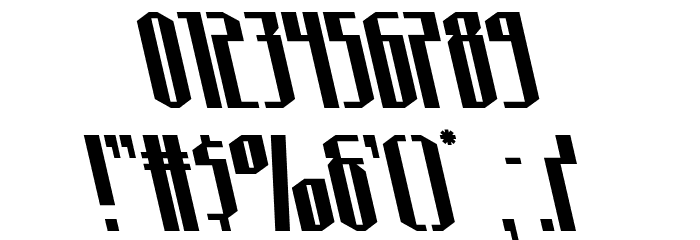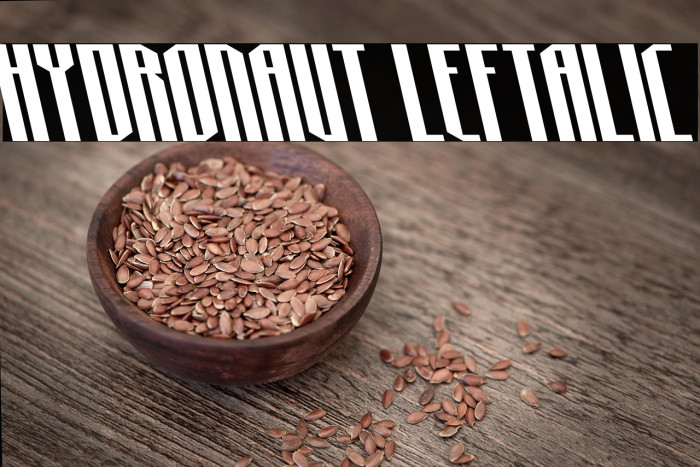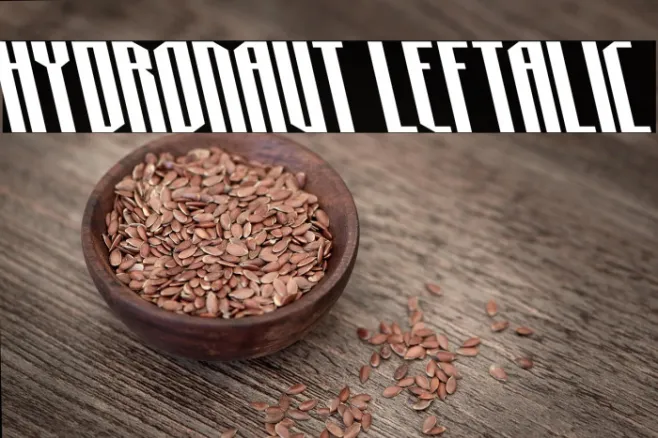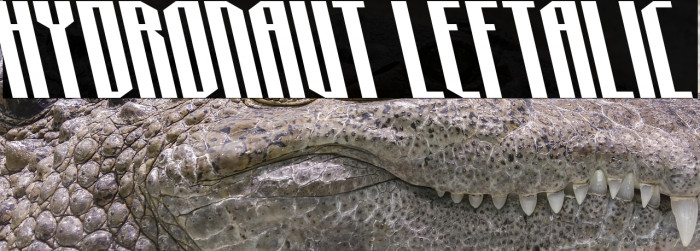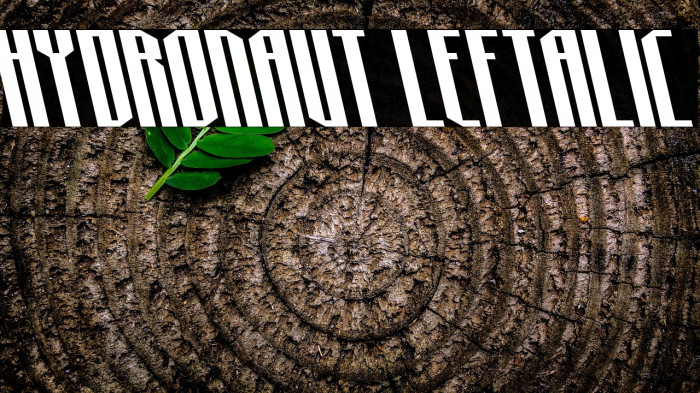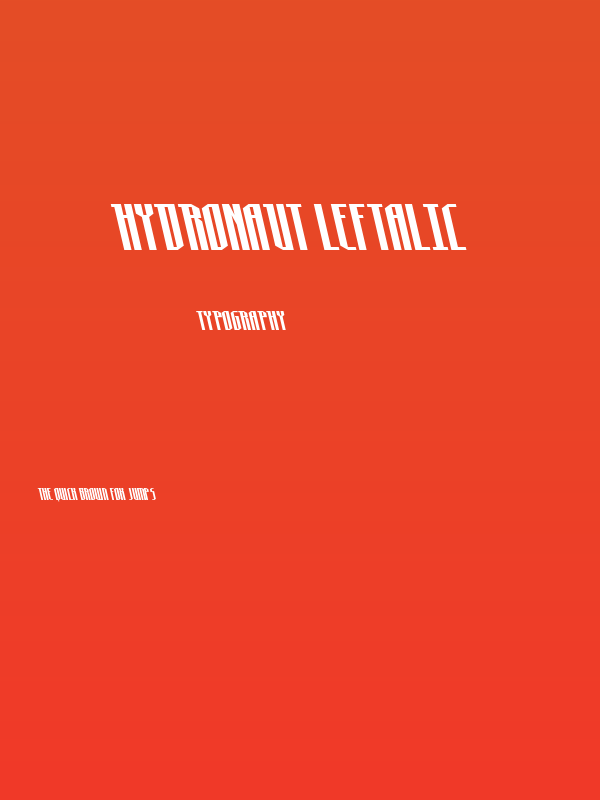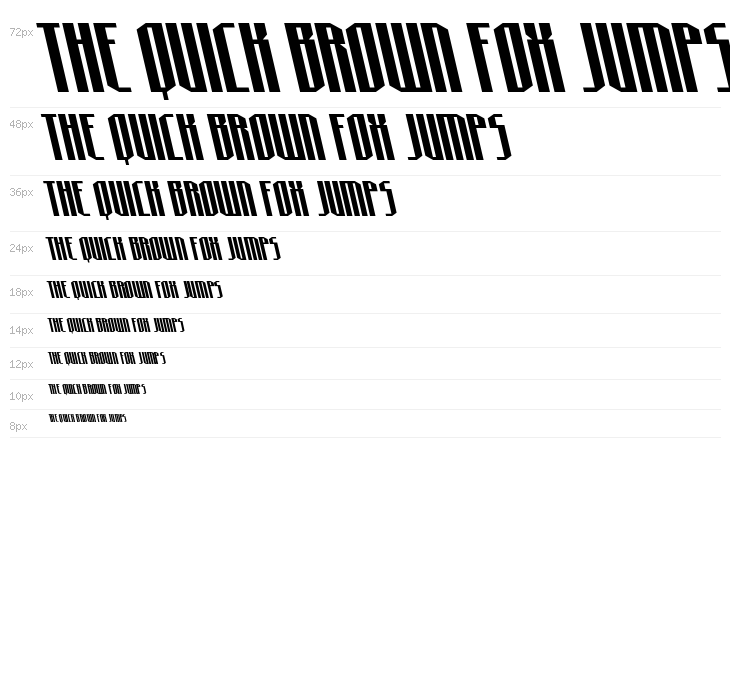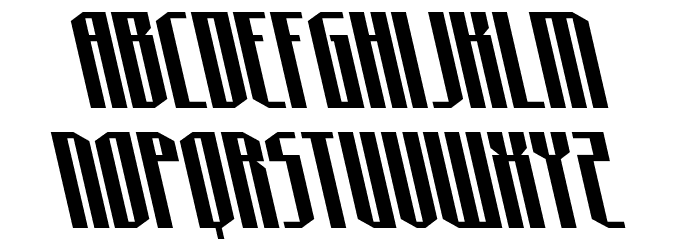
Hydronaut Leftalic Font
Hydronaut Leftalic Description
This font features a bold and angular design with a distinct slant to the left, creating a dynamic and futuristic appearance. The characters are tall and narrow, with sharp edges and a geometric structure that gives them a modern and edgy feel. The uppercase and lowercase letters maintain a consistent style, while the numbers and special characters complement the overall aesthetic. The font's unique style makes it stand out, ideal for projects that require a strong visual impact. Its design is reminiscent of sci-fi themes and digital interfaces, making it suitable for creative and tech-oriented applications.
Overall StyleFuturistic
Proposed ProjectsIdeal for sci-fi themed posters, video game titles, tech branding, and digital interfaces.